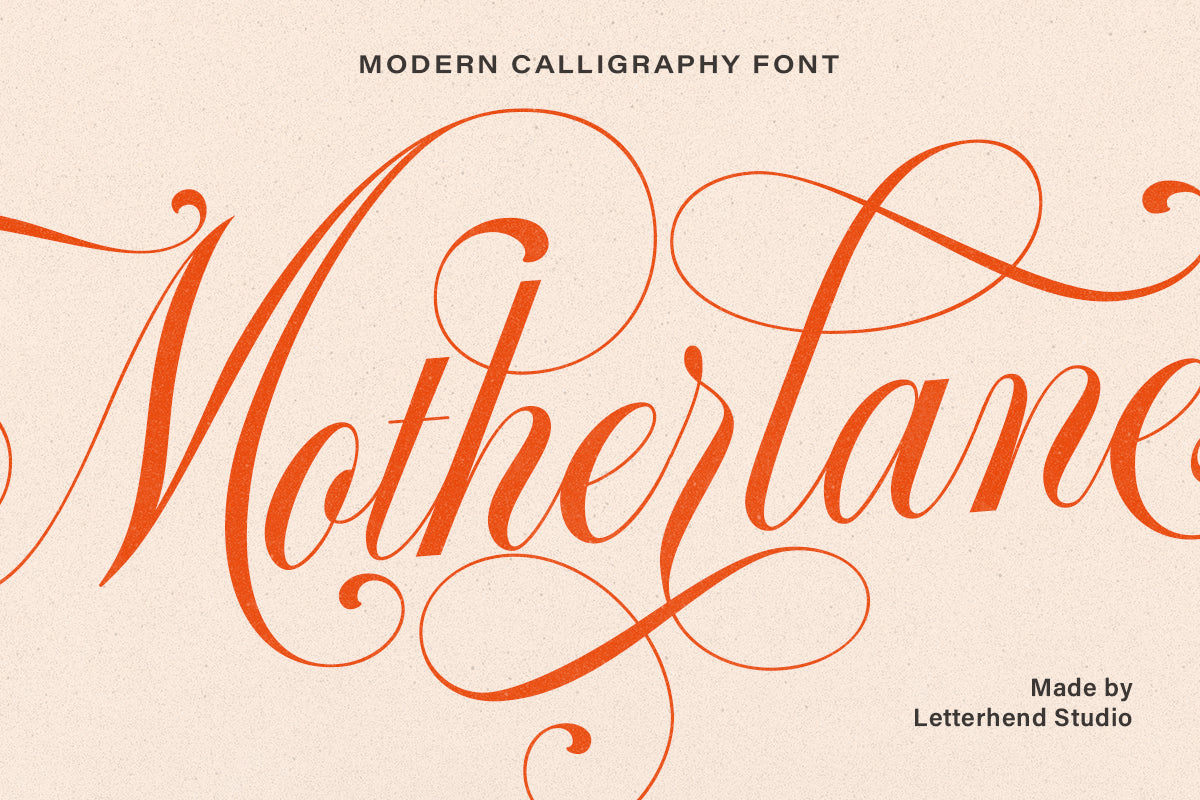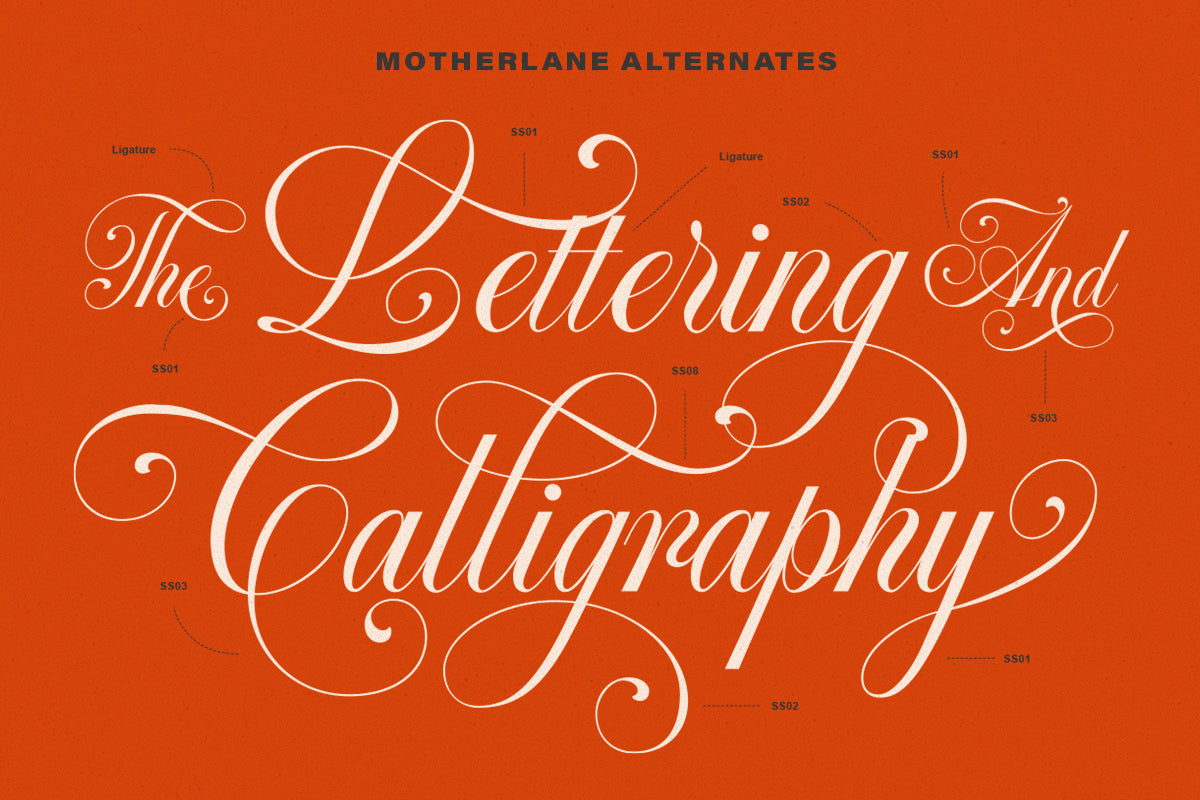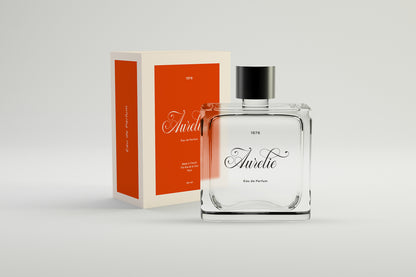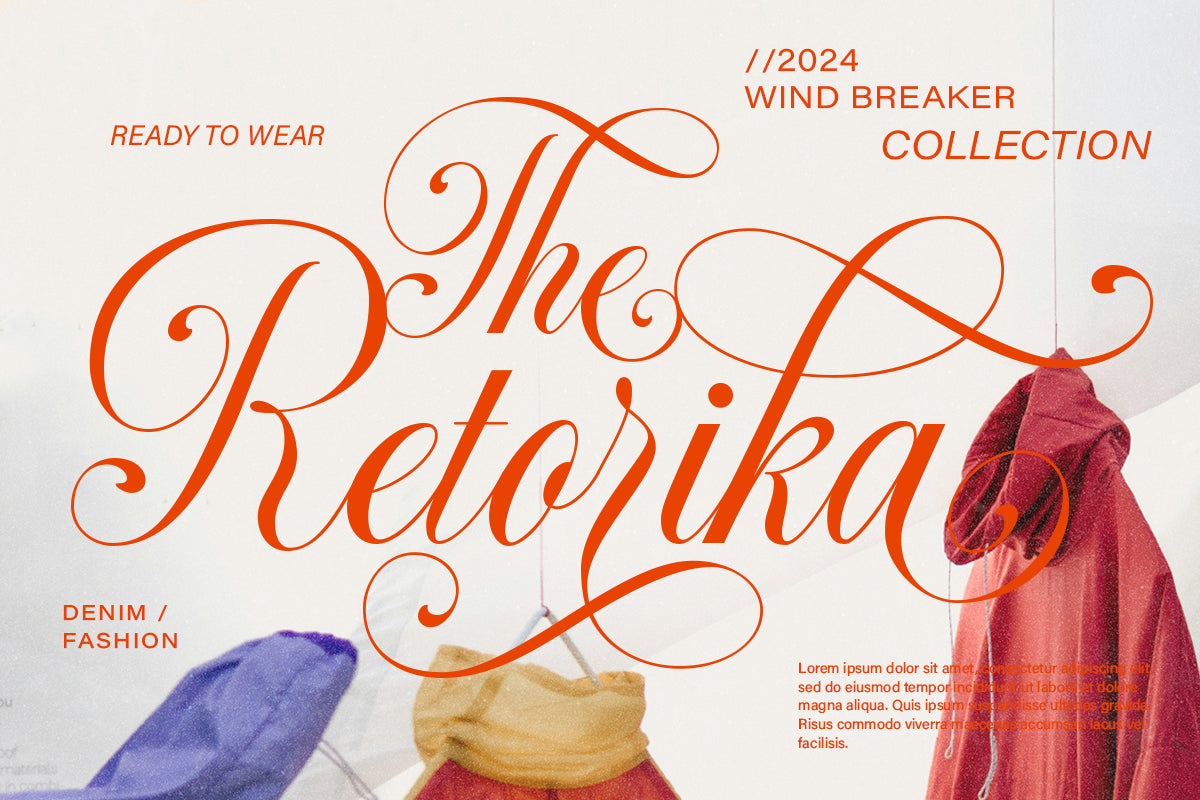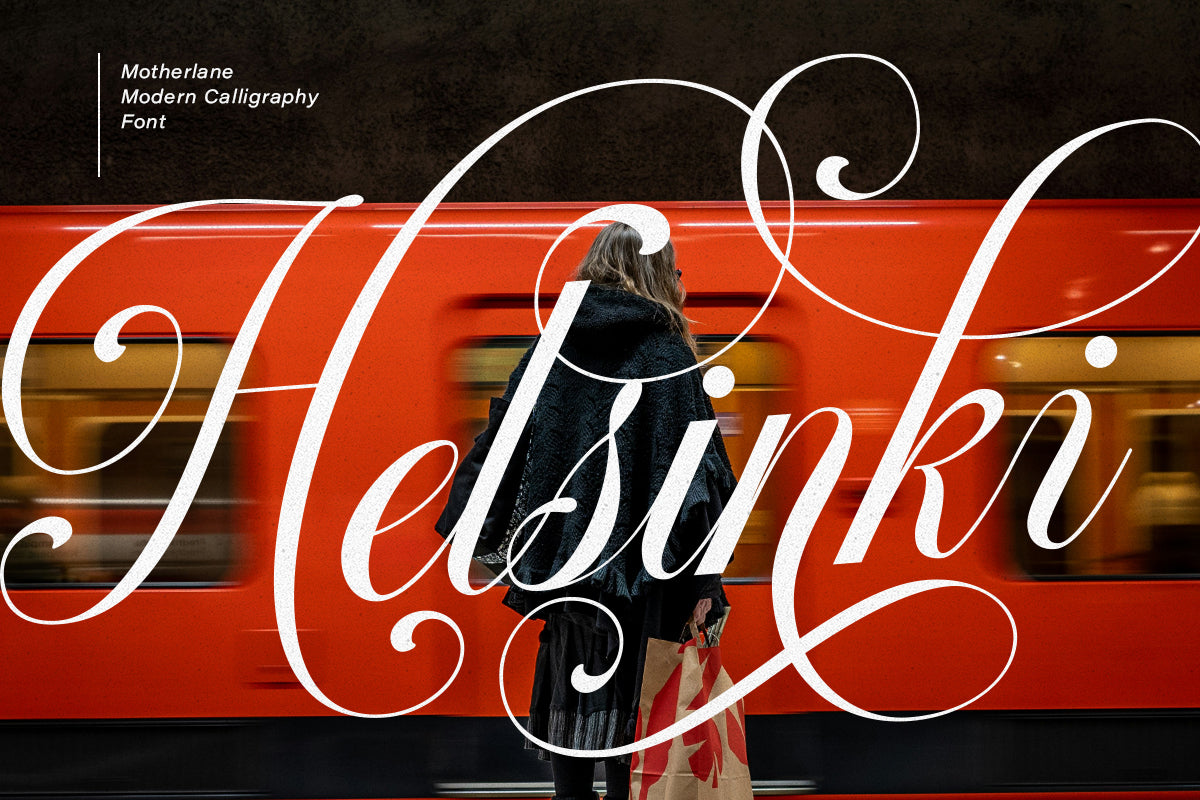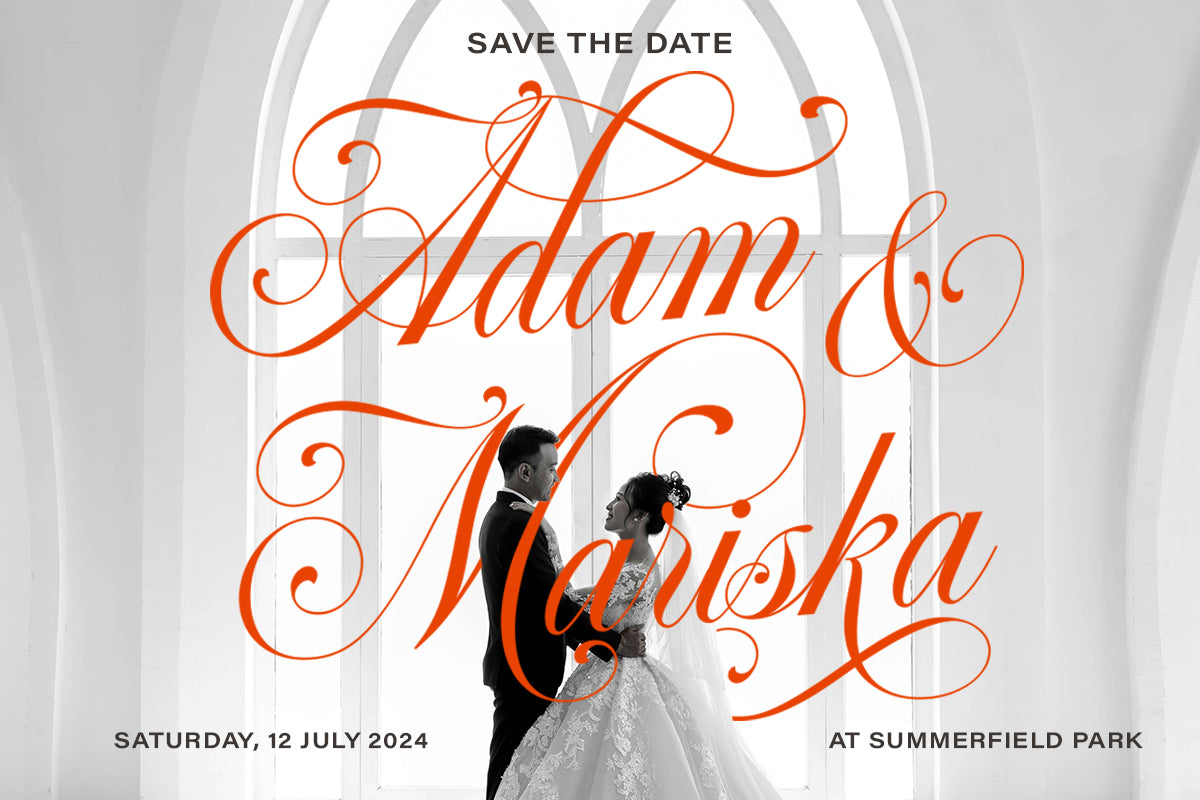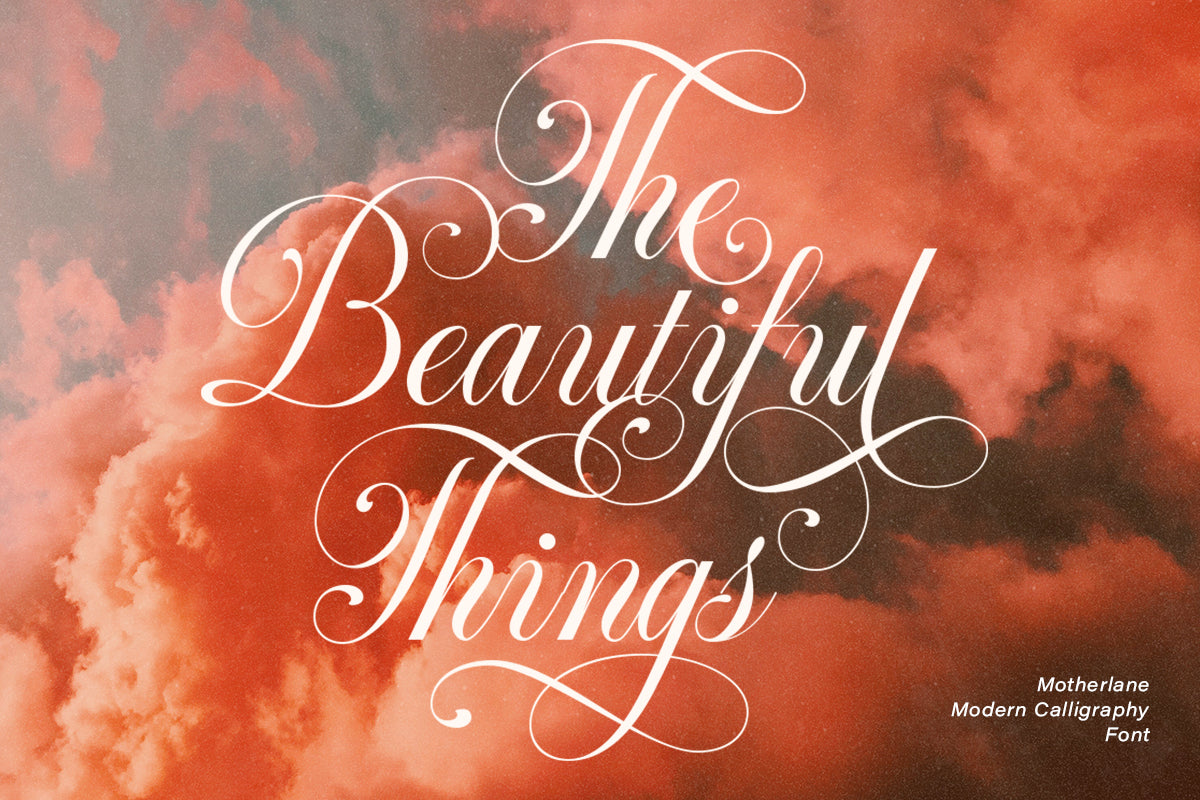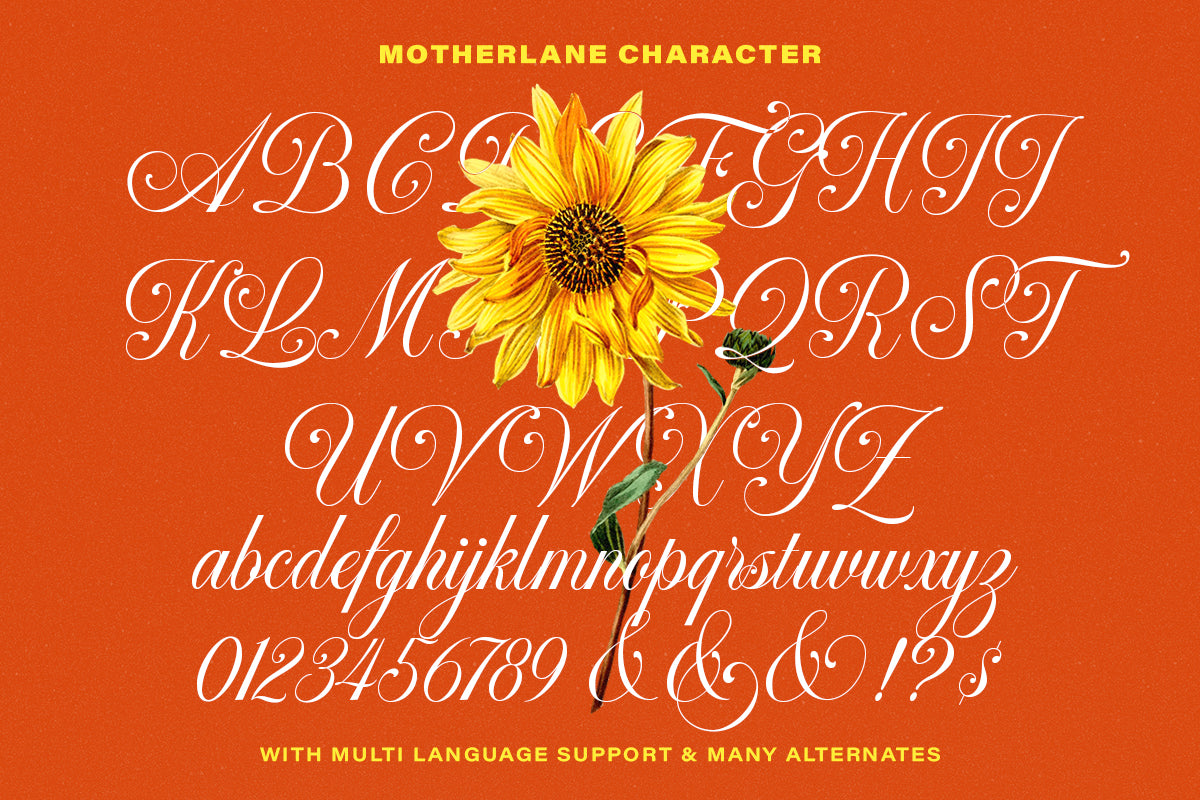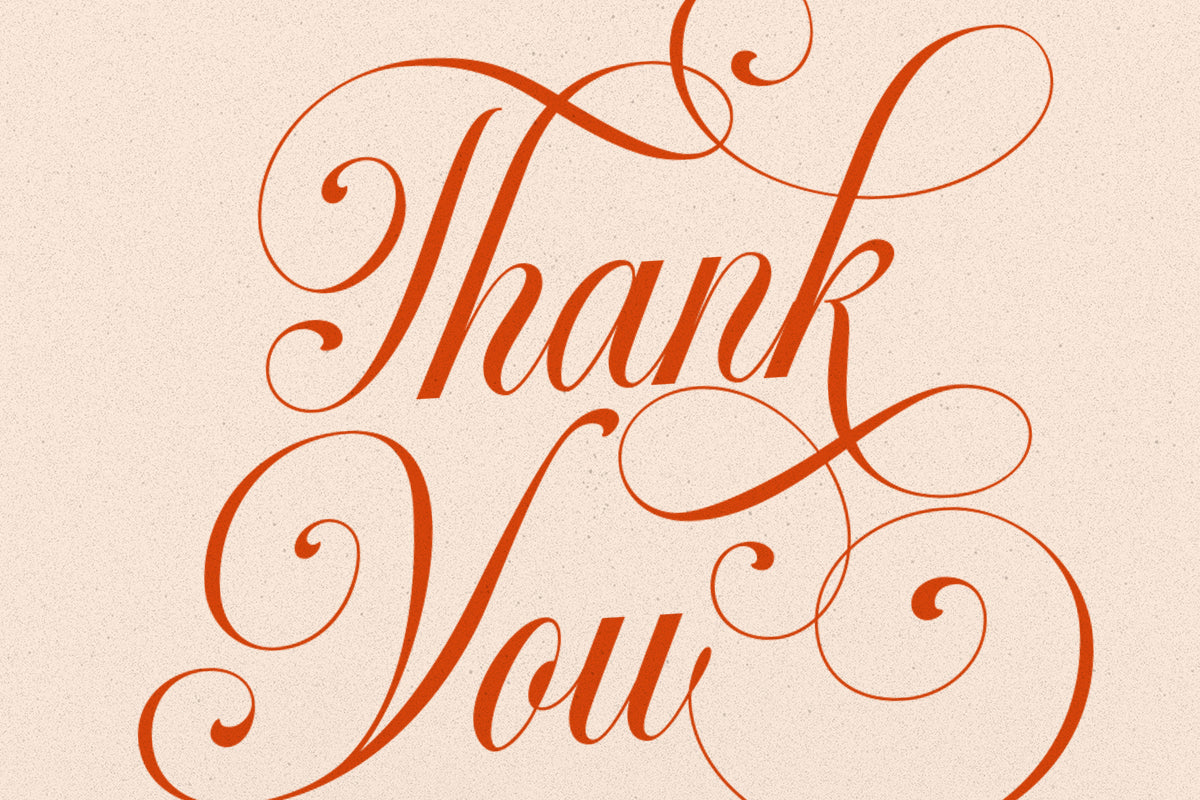
Motherlane is an elegant modern calligraphy script inspired by natural handwritten strokes. Its graceful flow and beautiful swashes enhance its charm and sophistication. This font is perfectly suited for use in wedding invitations, labels, logos, magazines, books, greeting or wedding cards, packaging, fashion, makeup, stationery, novels, and any advertising purpose.
Features:
Uppercase & lowercase
Numbers and punctuation
Alternates & Ligatures
Multilingual Support